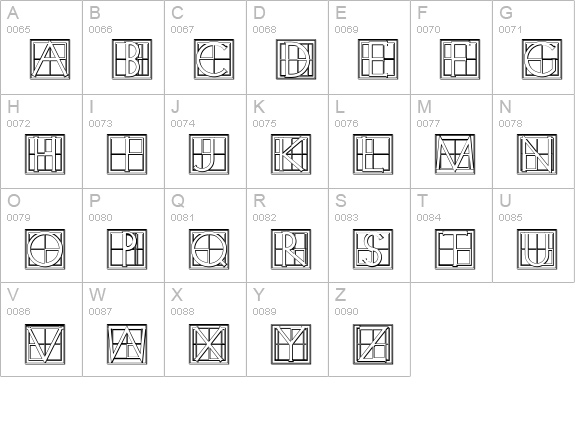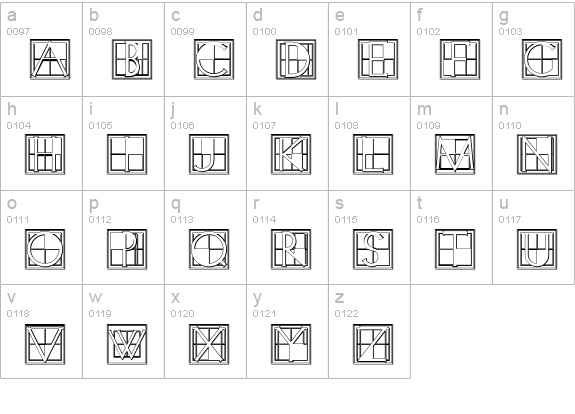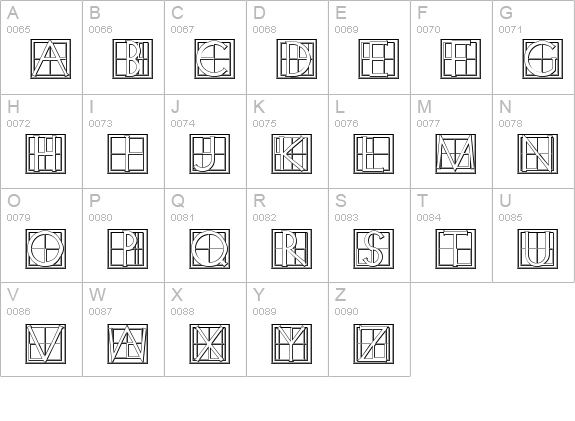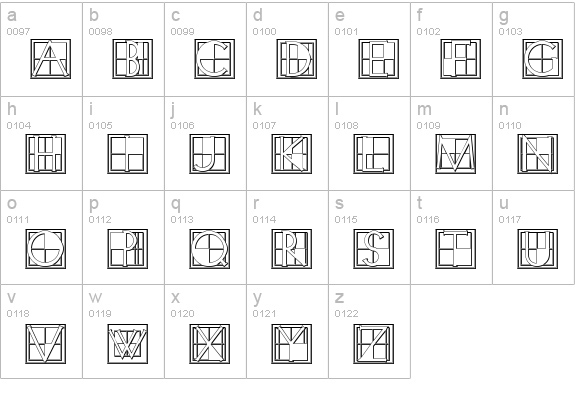
XperimentypoThree-B-Square Font Details
XperimentypoThree-B-Square font is a unique and modern typeface that combines geometric shapes with a playful twist. The bold and square design of this font makes it perfect for eye-catching headlines, posters, and branding projects. Its clean lines and sharp edges give a futuristic and edgy feel to any design. This font is freely available to download at FontsMarket.com, making it accessible to designers and creatives looking to add a touch of contemporary style to their projects. With its versatility and bold aesthetic, XperimentypoThree-B-Square font is sure to make a statement and stand out from the crowd. Whether you're working on a digital or print project, this font is a great choice for adding a modern and dynamic touch to your designs.